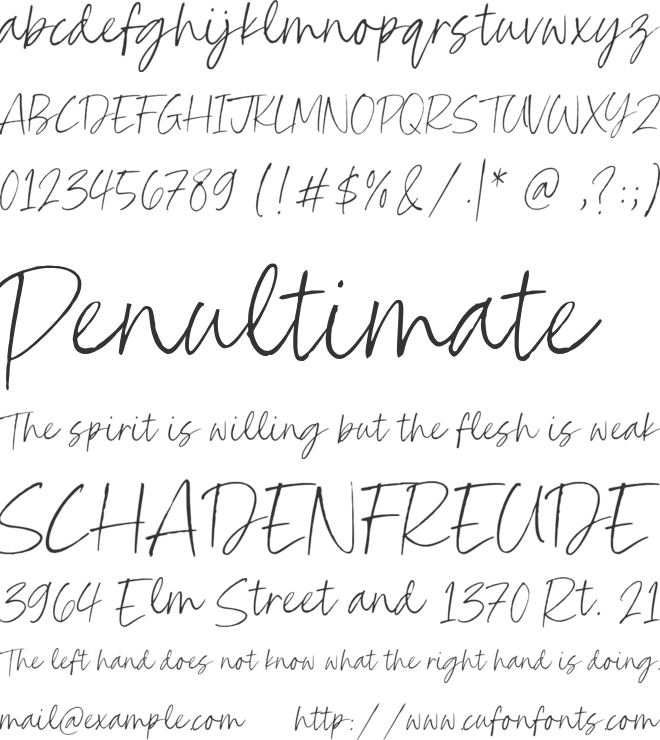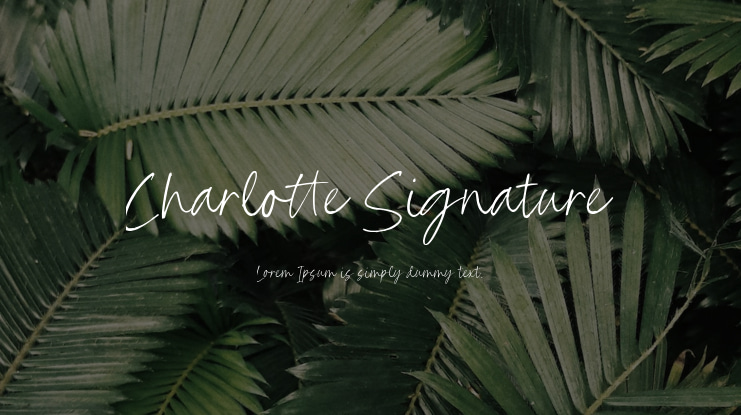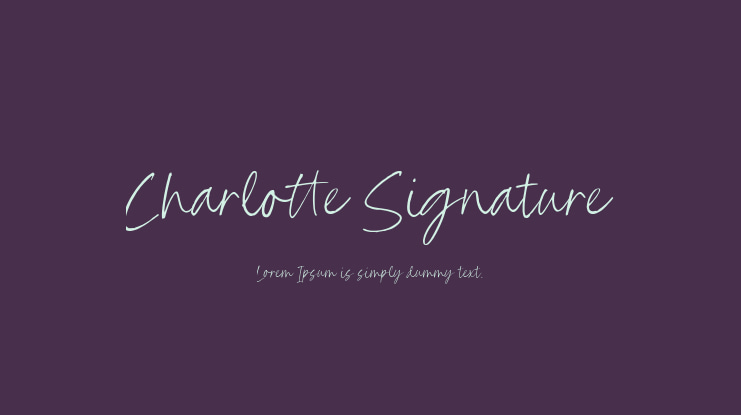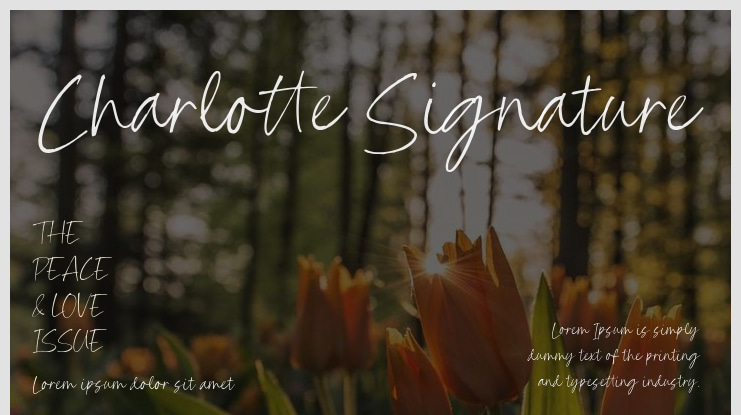
Charlotte Signature Font
Charlotte Signature is a Quirky Handwritten Script Font
This font is a delightful and whimsical choice for your design projects. With its unique and playful letterforms, this font adds a touch of quirkiness and creativity to any design. The irregular and whimsical strokes give the Charlotte Signature font a charming and handcrafted aesthetic, perfect for adding a fun touch to your logos, packaging designs, and social media posts. Whether you're aiming for a vintage-inspired look or a contemporary and artistic vibe, the Charlotte Signature font offers versatility and character. Embrace the quirky energy of the Charlotte Signature handwritten script font and let your designs stand out with a touch of delightful eccentricity.
Charlotte Signature Font also supports multilingualism